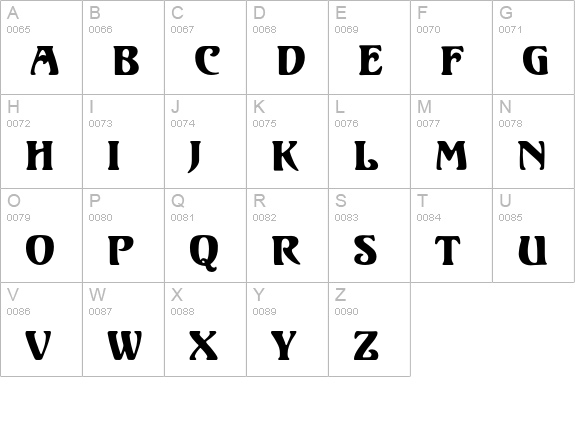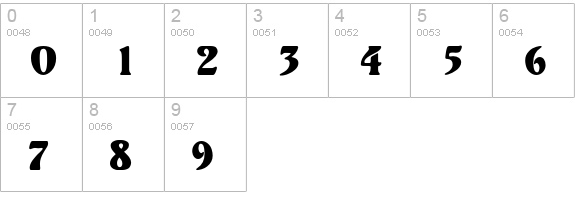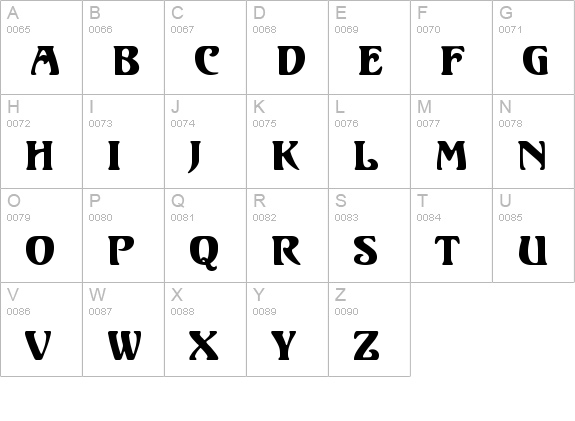
Introducing Sparta font, a stunning typeface that exudes strength, power, and timeless elegance. Inspired by the legendary warriors of ancient Sparta, this font effortlessly combines bold lines and sleek curves, capturing the essence of bravery and resilience. Sparta font is meticulously crafted to bring a touch of prestige to any design project. Whether you're creating a logo for a fitness brand, designing a poster for a motivational event, or crafting a striking headline for a magazine, Sparta font is the perfect choice to make a lasting impression. One of the most remarkable features of Sparta font is its versatility. It effortlessly adapts to various design styles, making it suitable for both modern and classic designs. Its clean and crisp lines ensure readability even in smaller sizes, while its bold presence commands attention in larger formats. What's even more amazing is that Sparta font is available for free! Yes, you read that right. You can freely download this exceptional typeface at FontsMarket.com. We believe that great design should be accessible to all, and that's why we're thrilled to offer Sparta font as a gift to designers, artists, and enthusiasts alike. So, unleash your creativity and let Sparta font guide you to create designs that embody strength, determination, and excellence. With its timeless appeal and the freedom to use it in any project, Sparta font is a valuable asset that will elevate your designs to new heights. Download it now, and embark on a design journey that captures the essence of Sparta.